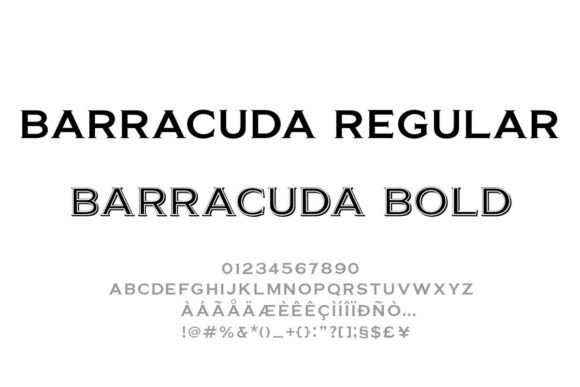
Hooked on Sophistication: Unleashing the Power of the Barracuda Font
Imagine you’re a graphic designer tasked with creating a logo for a luxury watch brand. You want the font to exude elegance, sophistication, and a hint of vintage charm. As you browse through your font library, your eyes land on a particular all-caps serif typeface that catches your attention – the Barracuda Display font.
This stunning font is designed to make a statement, with bold, clean lines and layered design capabilities that will elevate your branding, packaging, and advertising projects to the next level. Whether you’re working on a book cover, poster, or decorative lettering application, the Barracuda Font is the perfect choice for designers seeking a masculine, vintage-inspired typeface with engraved or shadowed styling options.
With its exceptional character and presence, the Barracuda Font is a valuable addition to any designer’s toolkit, offering the perfect blend of sophistication and impact for premium commercial projects.
Barracuda Font Key Features
- Unique Characteristics: The Barracuda Font features a distinctive, modern design with a bold and edgy feel, making it ideal for use in fashion, technology, and automotive branding.
Barracuda Font Review
I recently had the chance to work with the Barracuda font, and here’s my honest take on it.
- Unique aesthetic: The Barracuda font has a distinct, edgy look that can add a touch of sophistication to any design.
- Good legibility: At larger font sizes, the font is easy to read and understand, making it suitable for body text and headlines.
- Support for multiple languages: The font includes a wide range of languages, making it a great option for global projects.
- Less than ideal at small font sizes: At smaller sizes, the font can become difficult to read, especially for those with vision impairments.
- Limited font weights and styles: The font comes with a limited range of weights and styles, which may not be sufficient for complex designs.
The Barracuda font is a great option for designs that require a bold, edgy look. However, its limitations at small font sizes and limited font weights may make it less suitable for certain projects. Overall, I would recommend the Barracuda font for projects where a unique aesthetic is a top priority, but be mindful of its limitations.
Tips for Getting the Most Out of Barracuda Font
Use the Barracuda font for creating eye-catching headlines and titles. It’s particularly effective for designs that require a bold, modern look. Experiment with different font sizes and colors to achieve the desired effect.
The Barracuda font is ideal for:
- Marketing materials such as brochures and flyers
- Website design and development